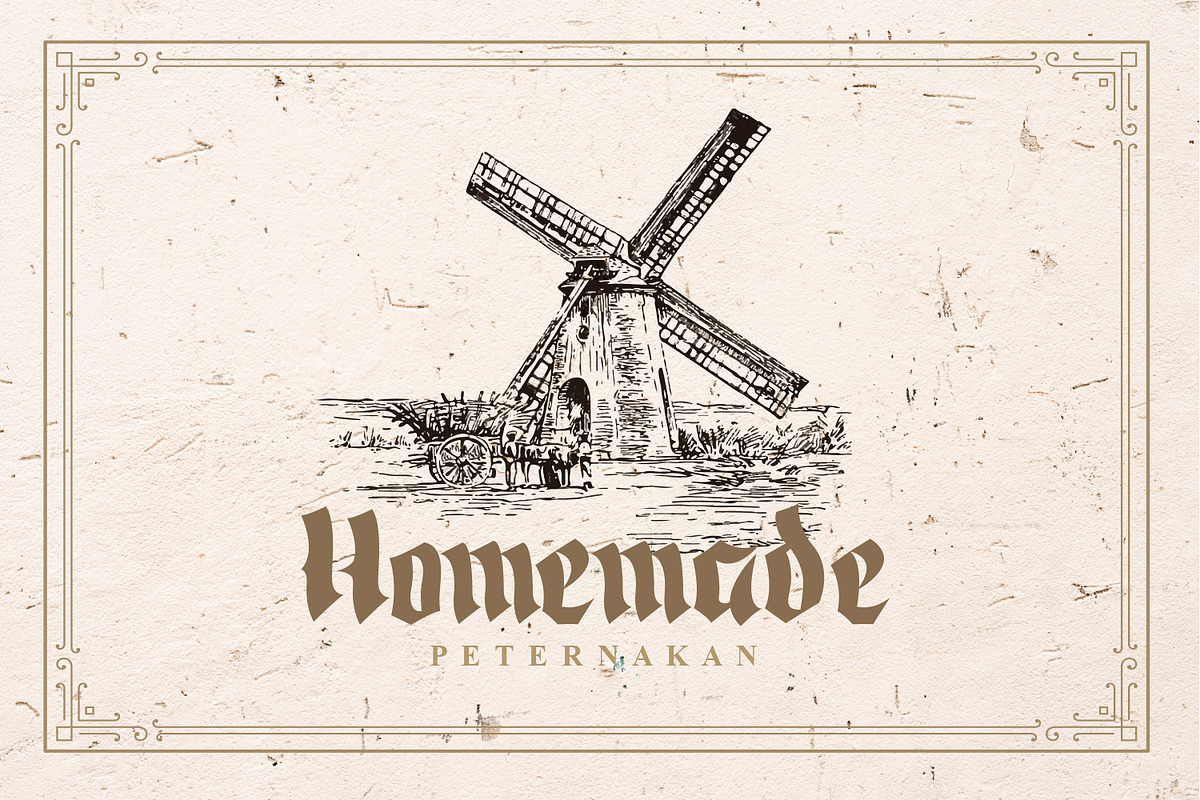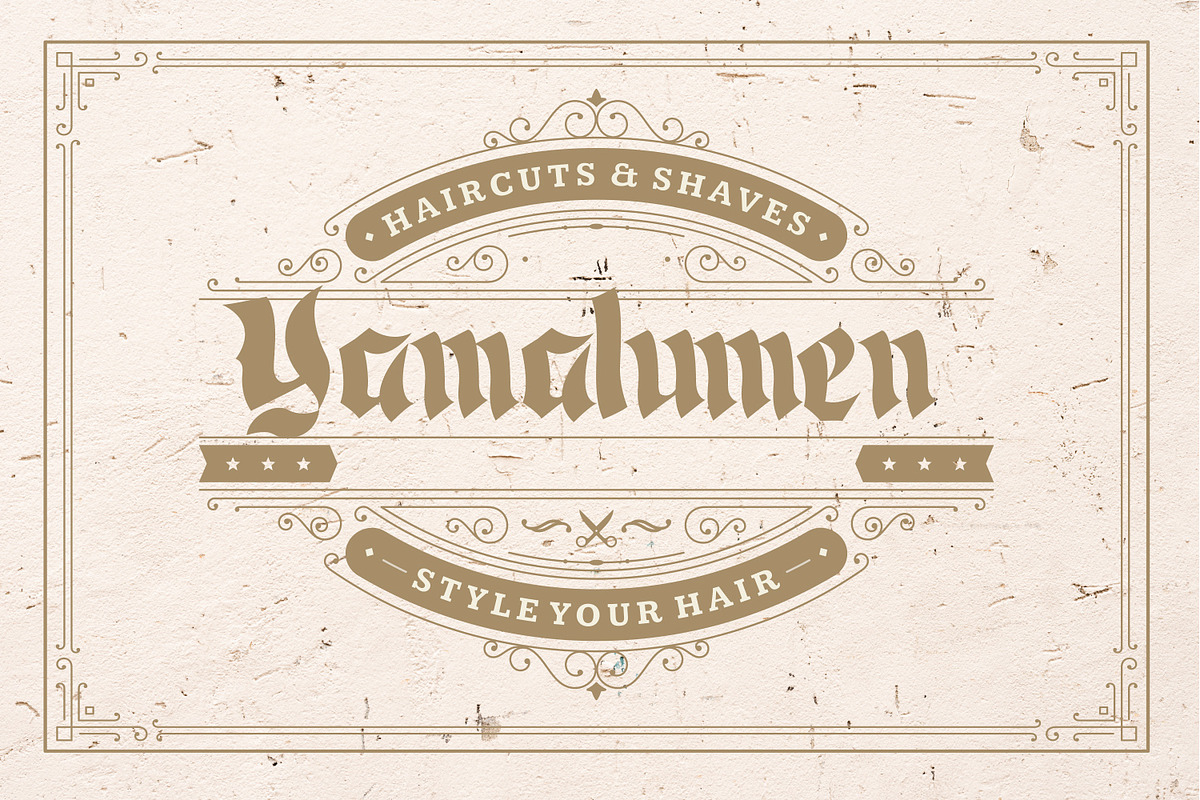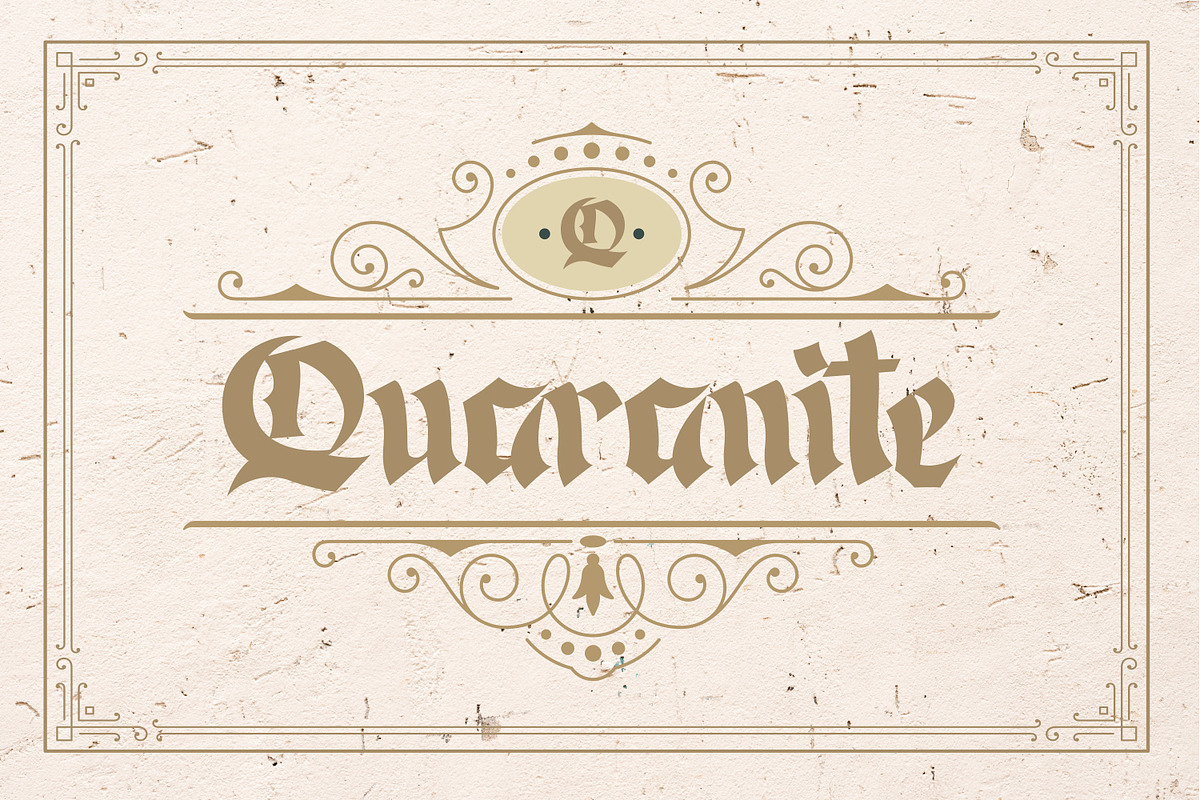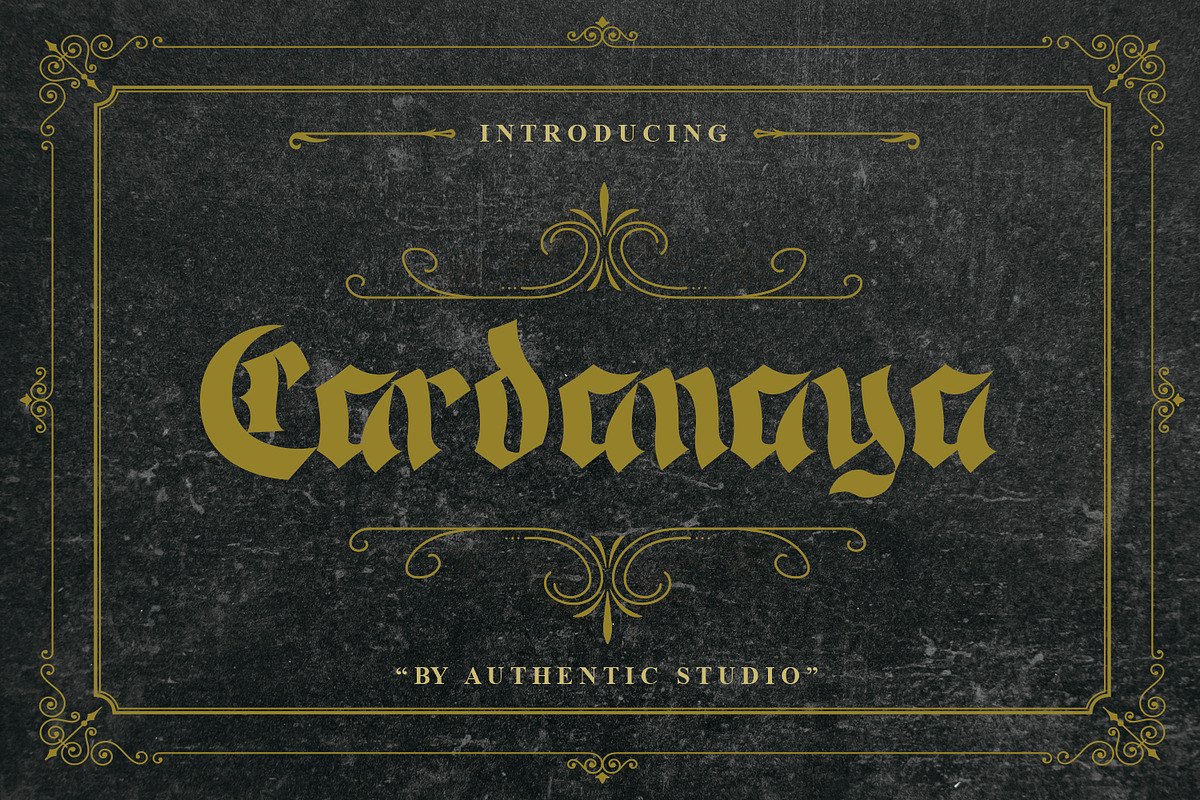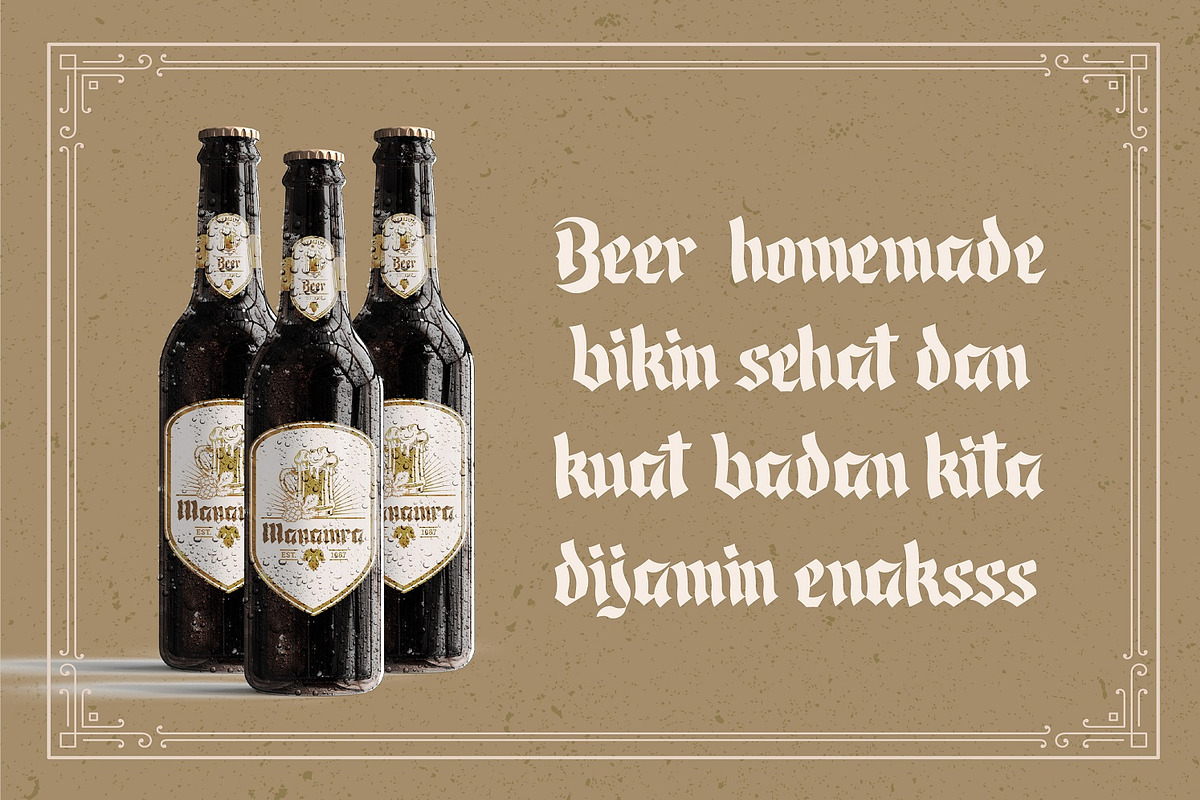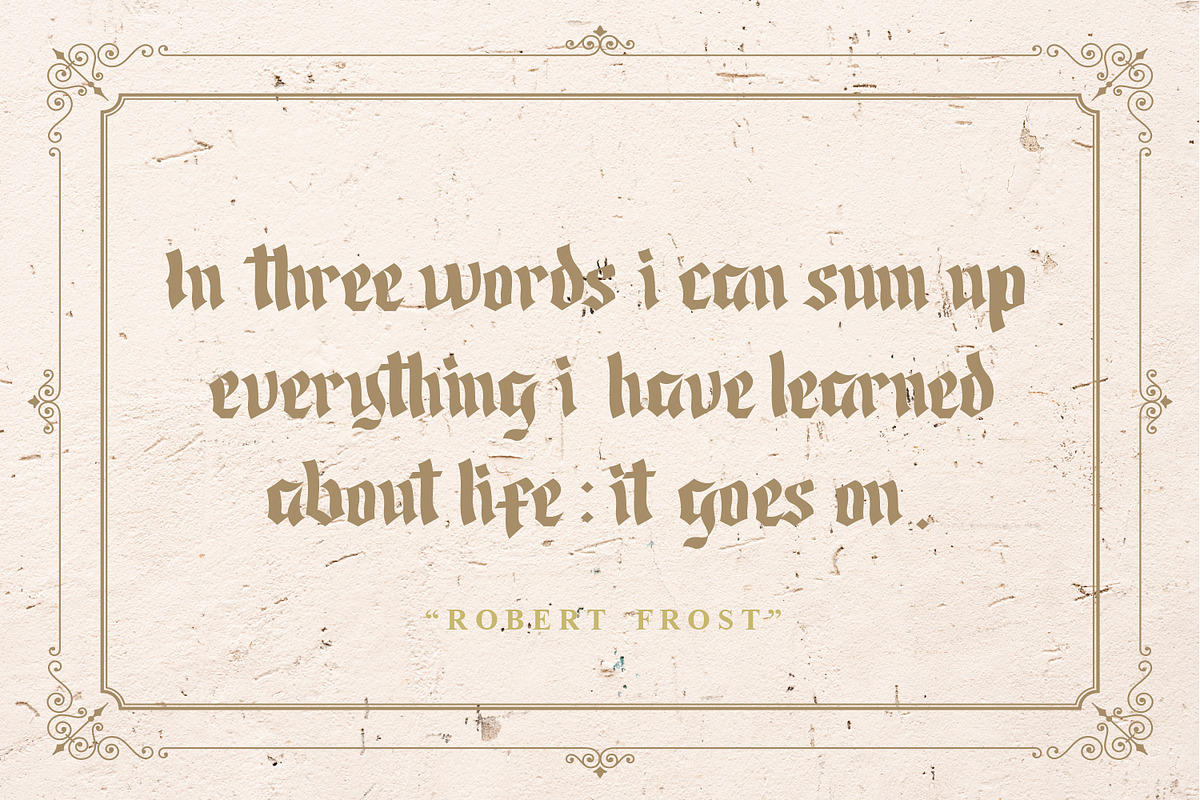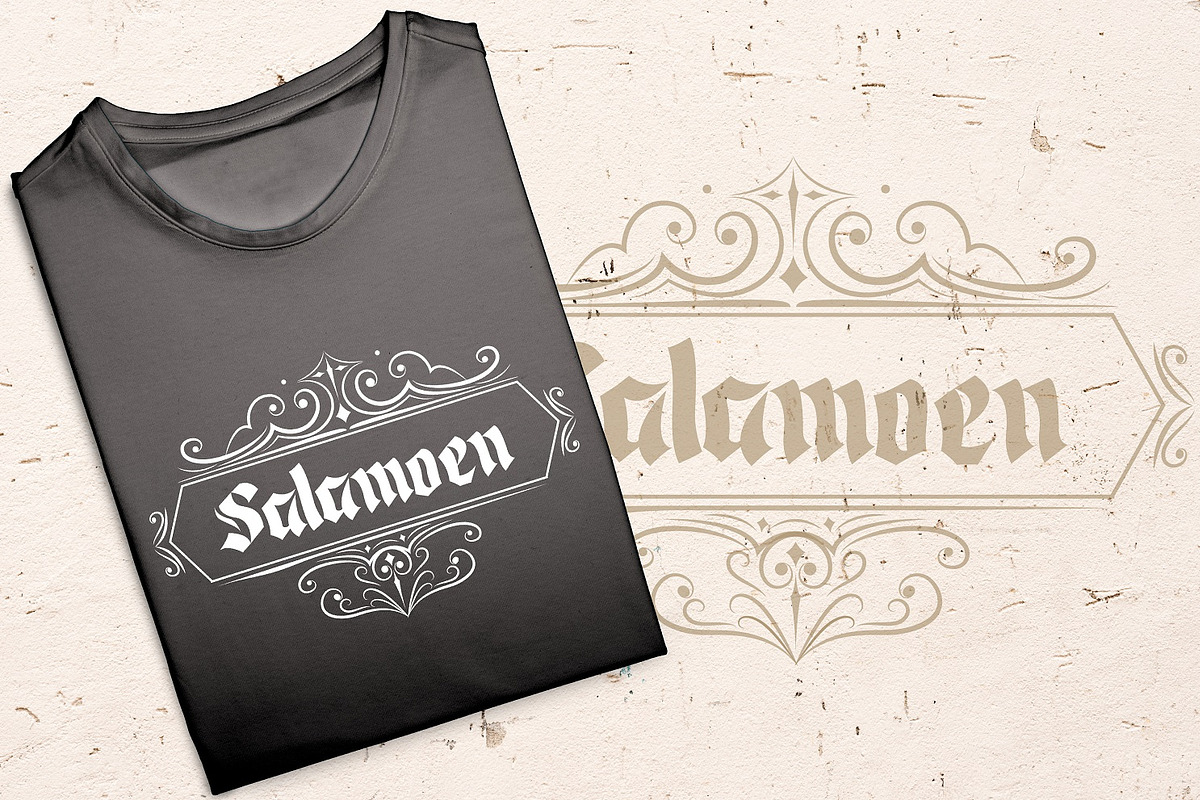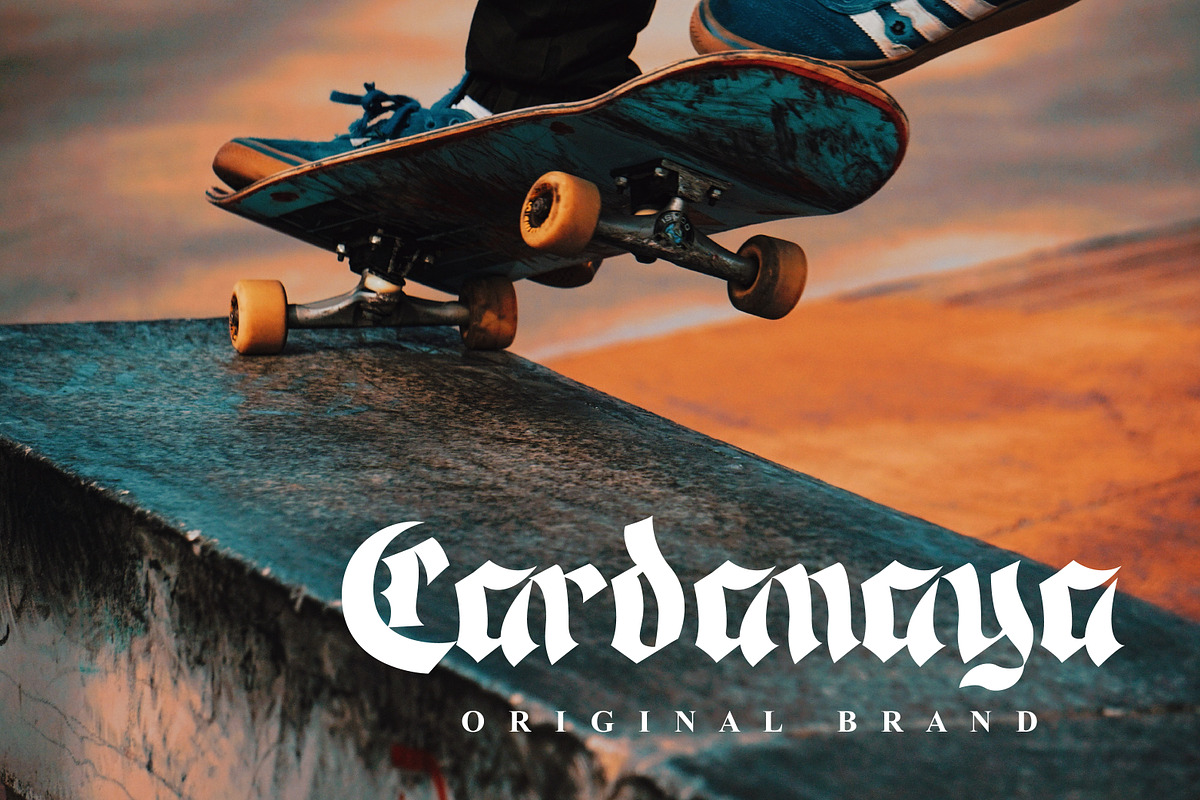
Cardanaya Blackletter
Cardanaya is an incredibly distinct blackletter font. Masterfully designed to become a true favorite, this font has the potential to bring each of your creative ideas to the highest level! Include : Otf Ttf